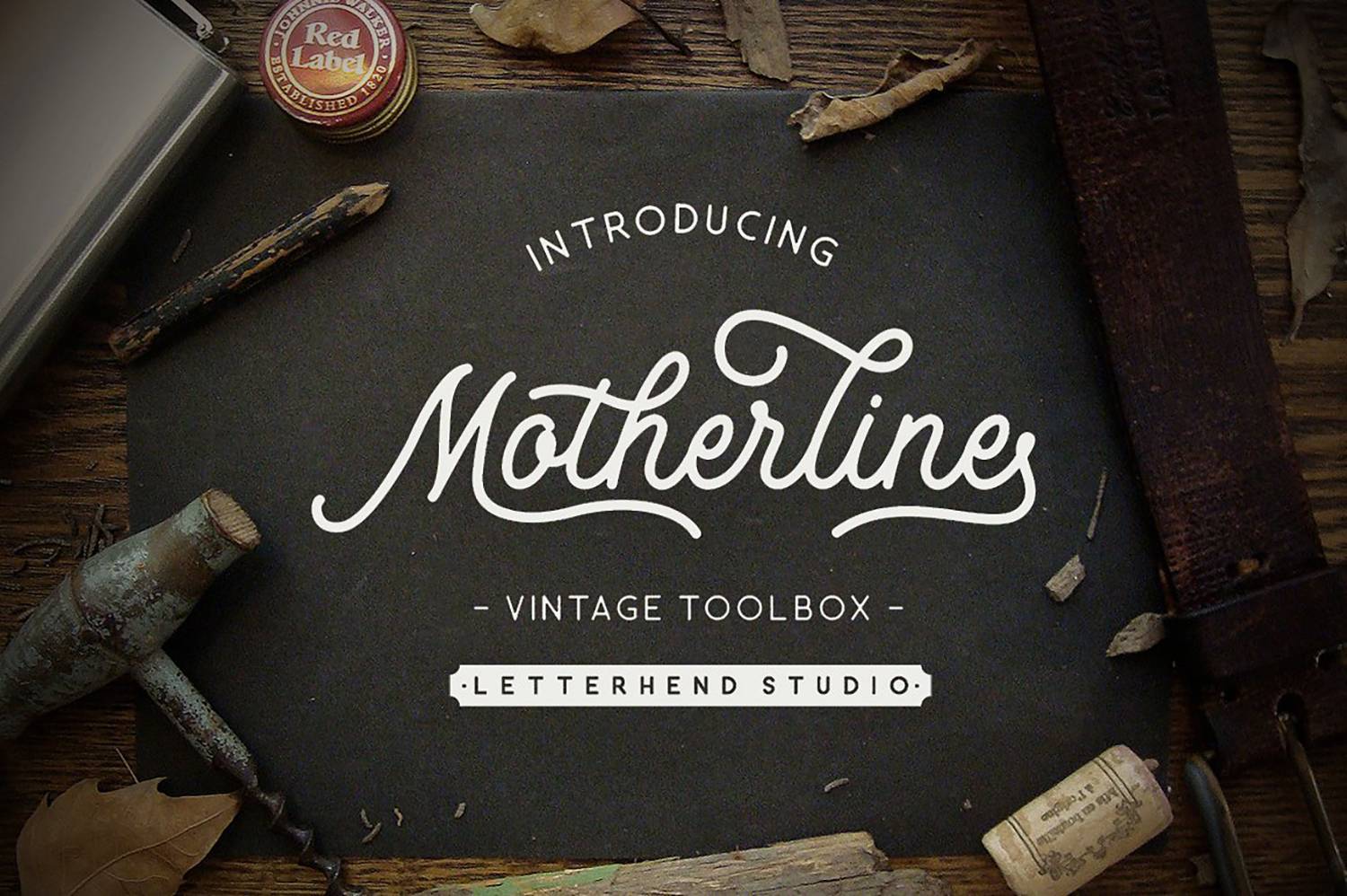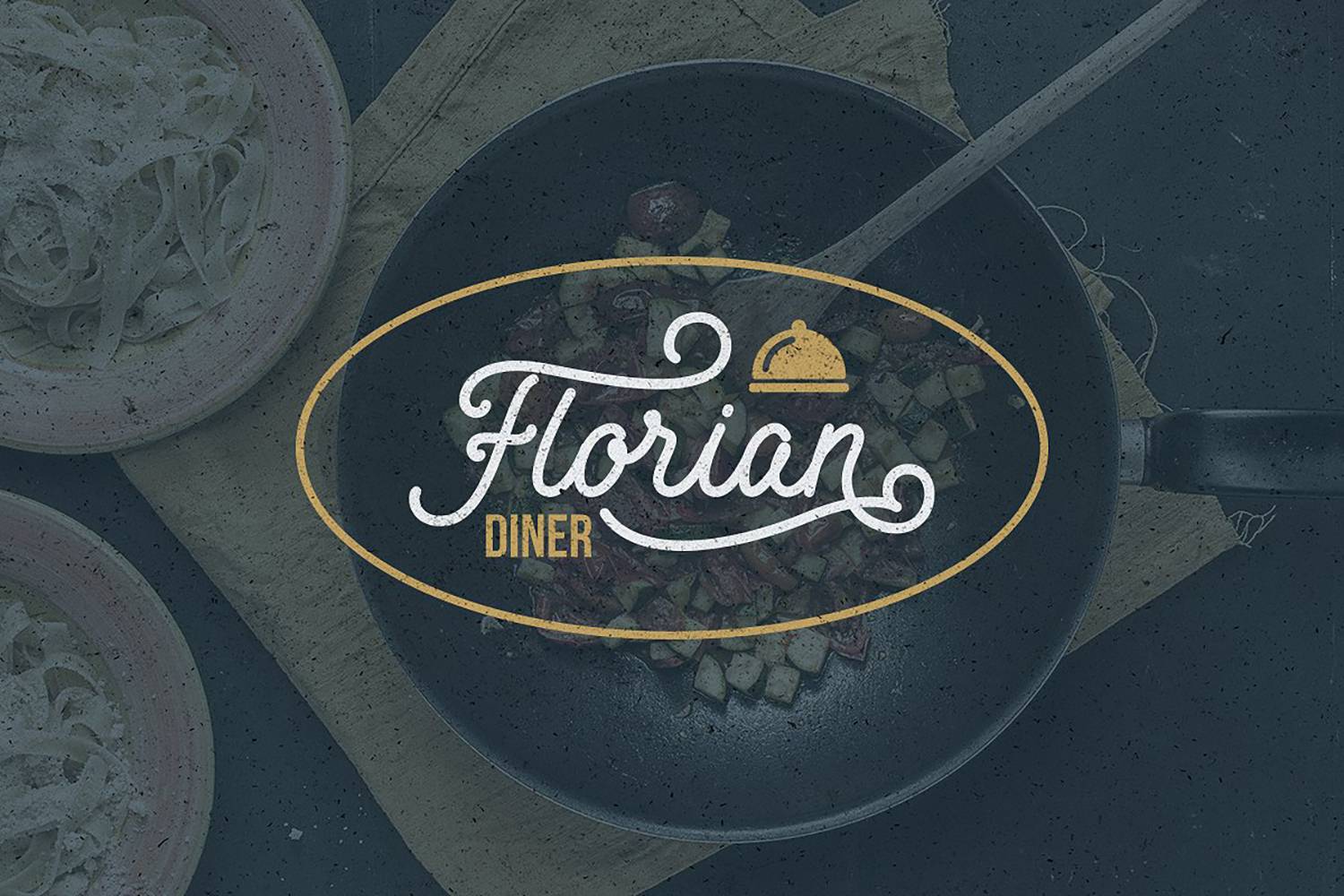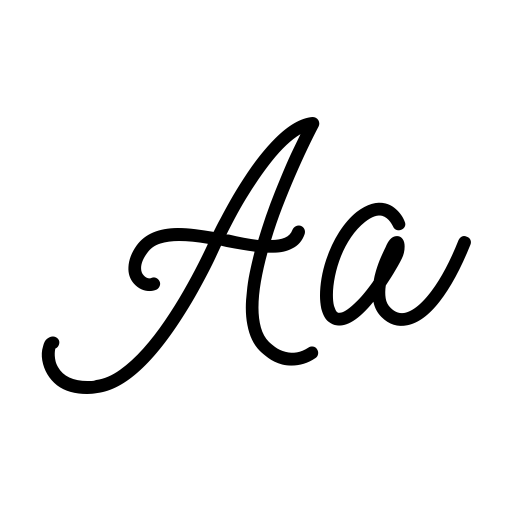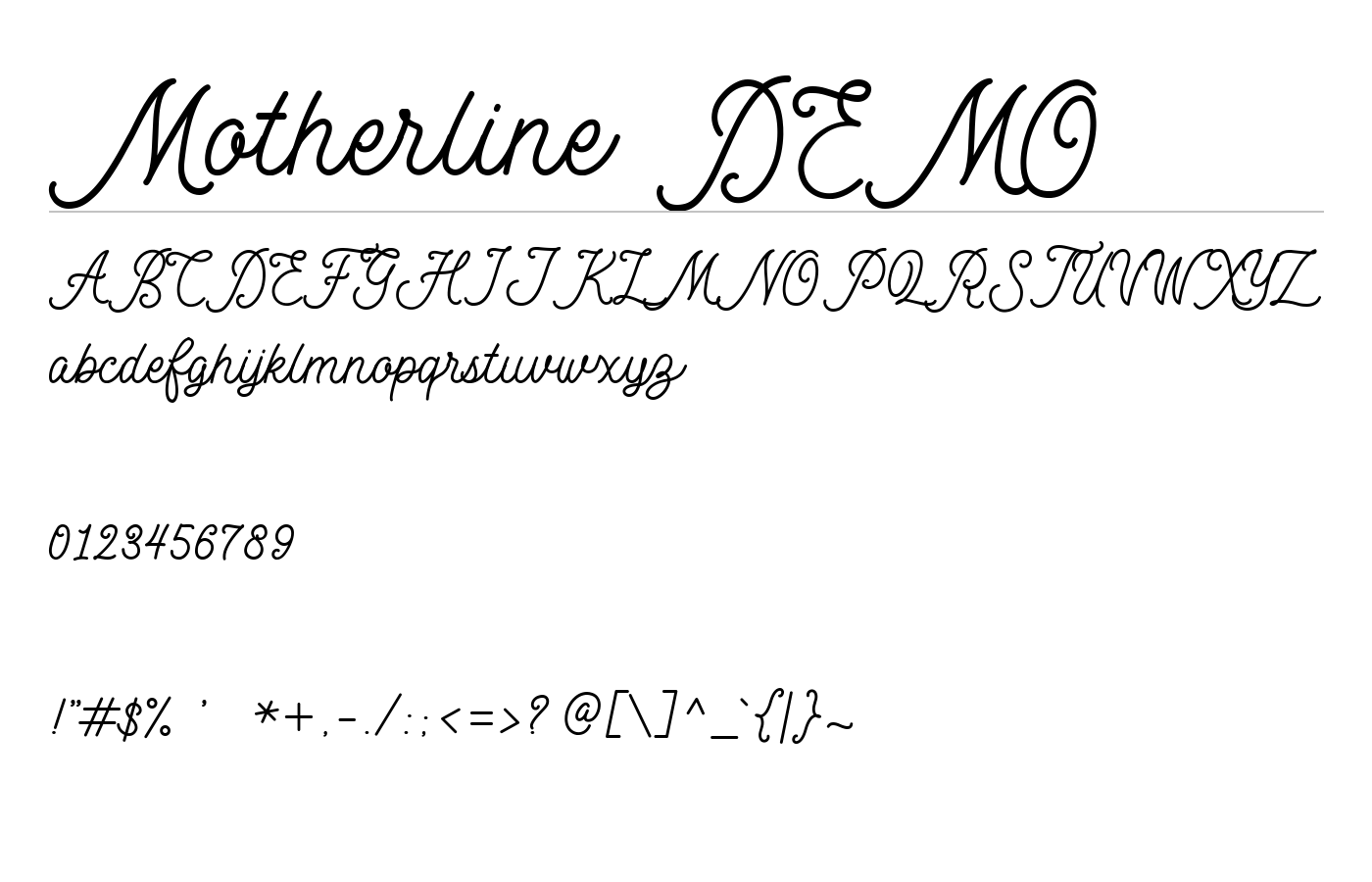
Motherline is a delicate script font with a graceful, handwritten style that combines elegance and readability. Its slender strokes and fluid curves make it ideal for invitations, branding, and design projects that seek a personal or vintage touch. This refined font works well in decorative headlines and logos where a charming, sophisticated feel is desired.
Motherline Font
About Motherline Font
| Font family | Motherline Font |